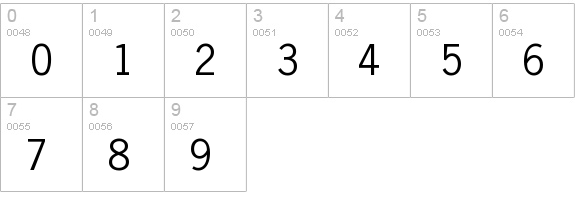
Introducing Macro SSi, a stunning font that combines modernity and elegance in its design. With its sleek and sophisticated lines, Macro SSi is the perfect choice for any project that requires a touch of sophistication and professionalism. Featuring a wide range of characters, including uppercase and lowercase letters, numbers, and punctuation marks, Macro SSi offers versatility and flexibility to designers and creatives alike. Whether you're designing a logo, creating a website, or working on a branding project, this font is sure to elevate your work to new heights. But what sets Macro SSi apart from other fonts is that it is free! Yes, you read that right. This extraordinary font is available for free download at FontsMarket.com, making it accessible to anyone looking to add a touch of class to their designs without breaking the bank. Downloading Macro SSi is quick and easy. Simply visit FontsMarket.com, locate the font, and start your download. Within moments, you'll have this exceptional typeface at your fingertips, ready to enhance your design projects and captivate your audience. So why wait? Discover the power and beauty of Macro SSi today and unlock a world of creativity. Download it for free at FontsMarket.com and embark on a design journey that will leave a lasting impression. Don't miss out on this incredible opportunity to elevate your work with Macro SSi - the font that effortlessly combines style, elegance, and affordability.